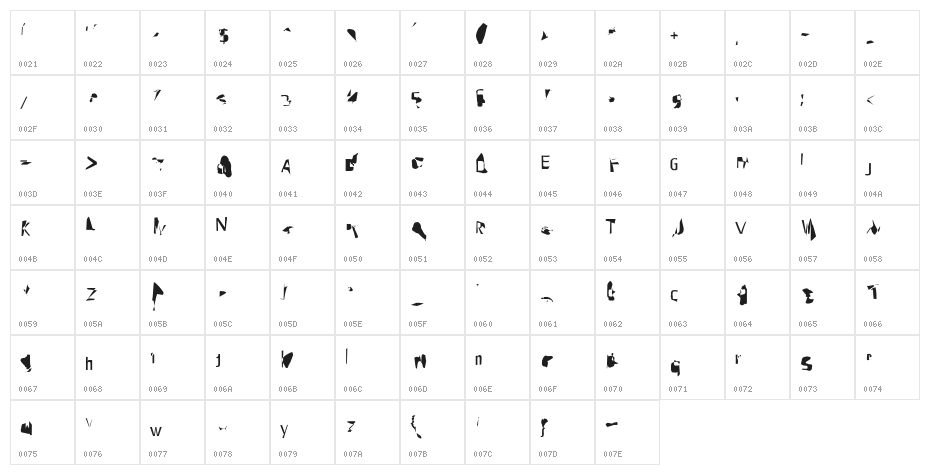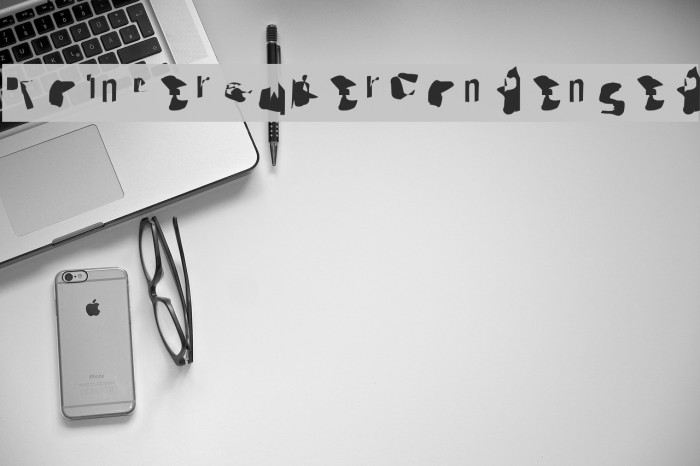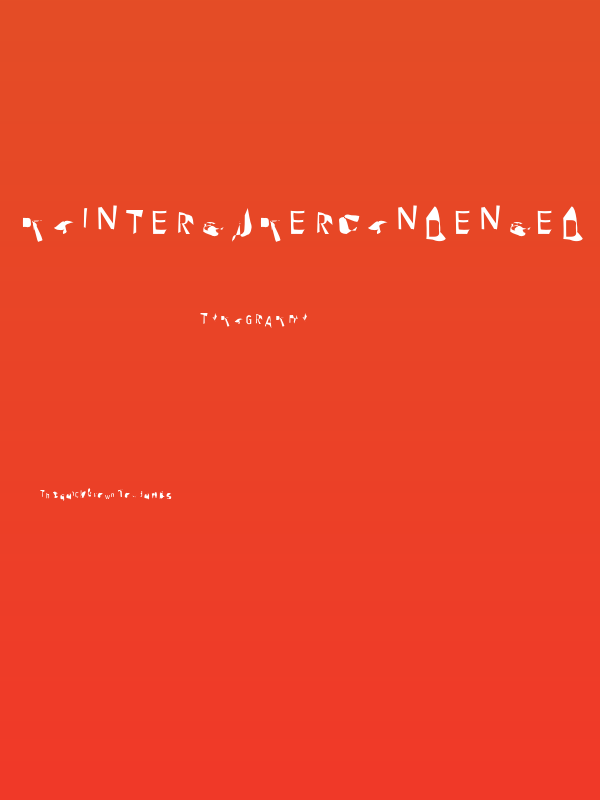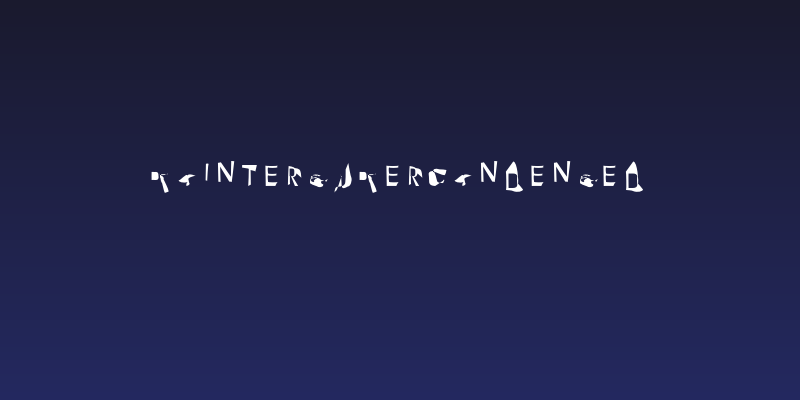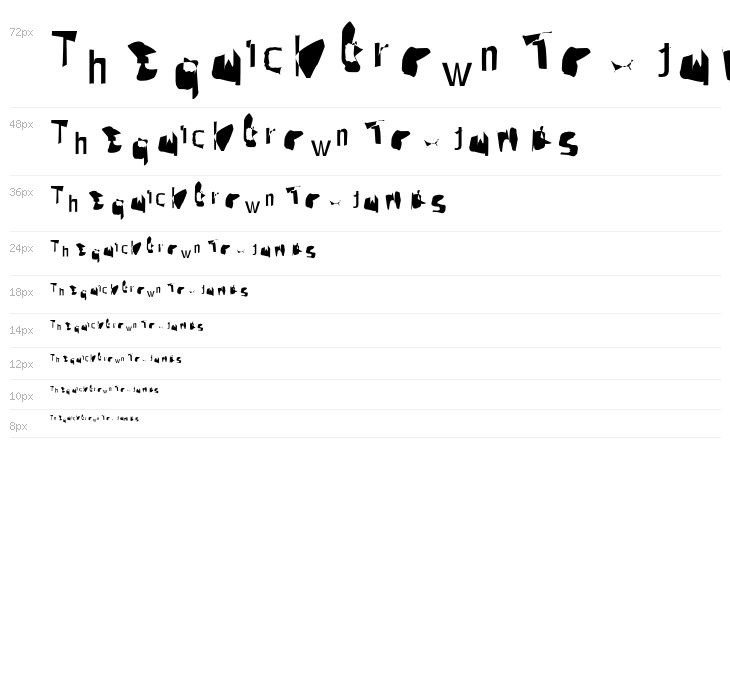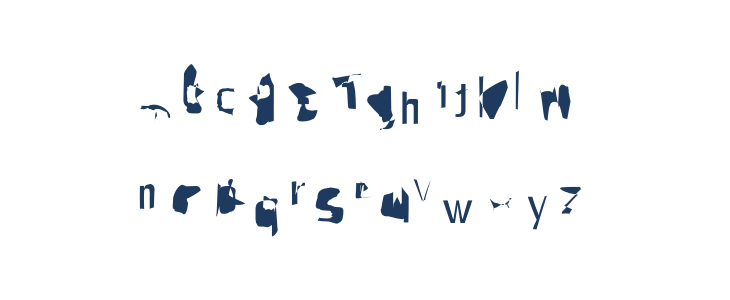
Pointer SuperCondensed Font
Pointer SuperCondensed Description
This font features an extremely condensed and abstract design, with characters that are heavily distorted and fragmented. The shapes are irregular and jagged, creating a chaotic and avant-garde appearance. Each letterform is unique, with sharp angles and broken lines that suggest a deconstructed style. The overall look is experimental and artistic, making it suitable for projects that require a bold and unconventional aesthetic. The font's fragmented nature challenges readability, making it more appropriate for artistic or decorative uses rather than functional text.
| Width | Condensed |
| Overall Style | Avant-garde, Experimental |
| Use Case | Artistic displays, Posters, Album covers |
| Proposed Projects | Ideal for avant-garde art projects, experimental design work, album covers, and posters where a bold statement is needed. |